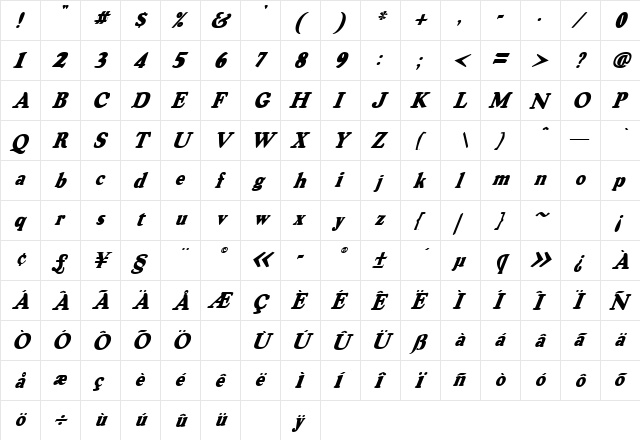
Marinao Grey Italic Regular
Design Context for Marinao Grey Italic Typeface
Marinao Grey Italic is a composed and adaptable typeface that performs quietly and consistently across a wide range of design contexts. The dynamic lean of this cut emphasises speed and emphasis in any layout.
Pro Tip: Use Marinao Grey Italic for emphasis, pull quotes, and subheadings where its slanted energy can add rhythm to the layout.